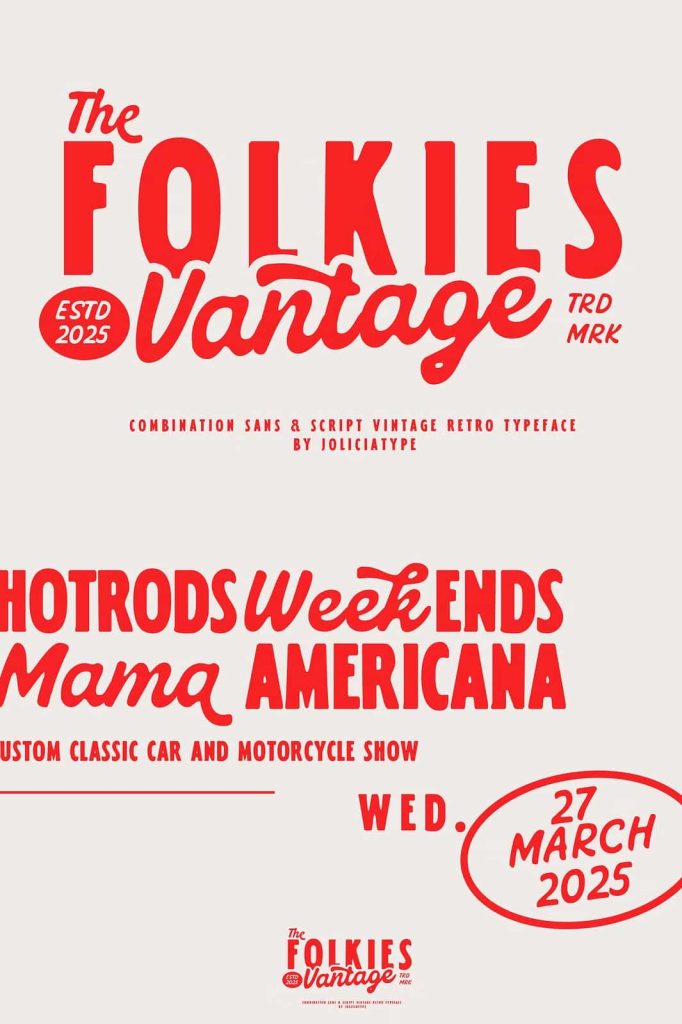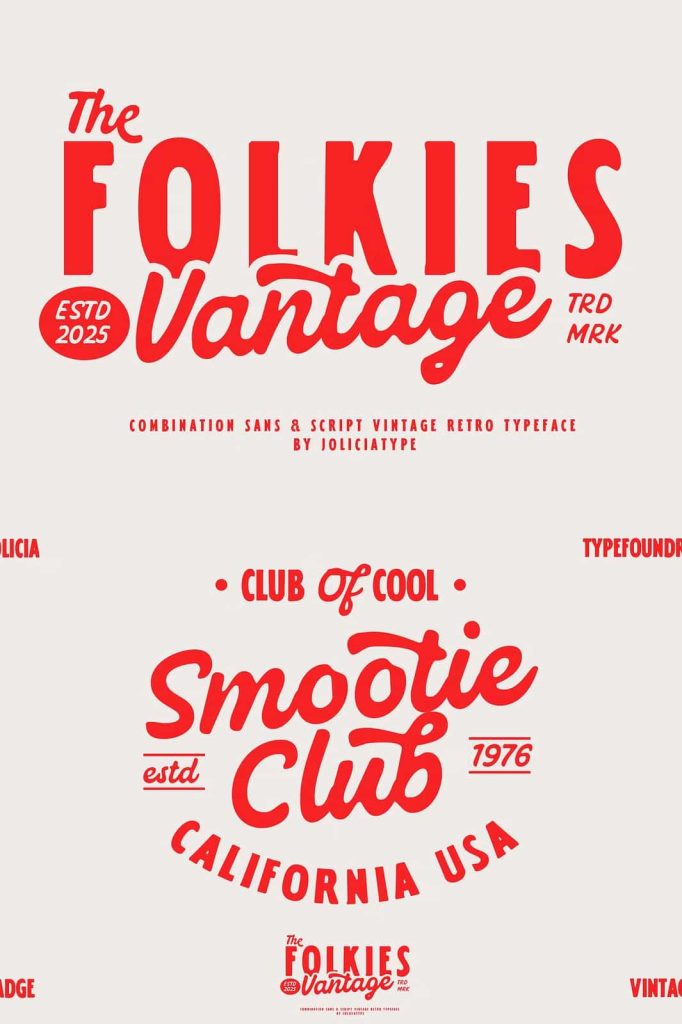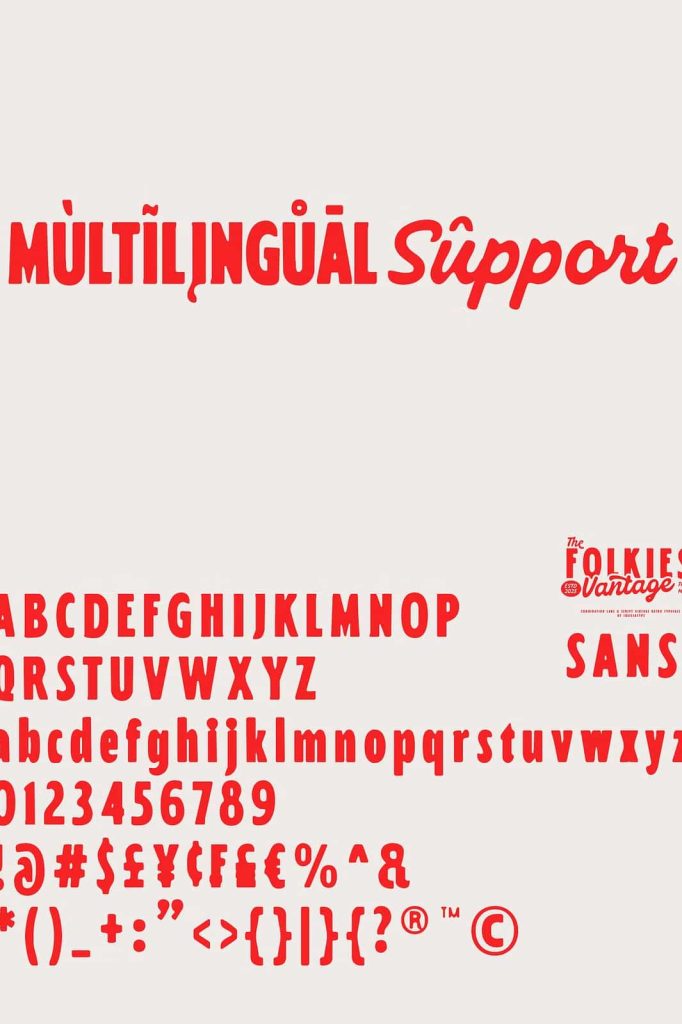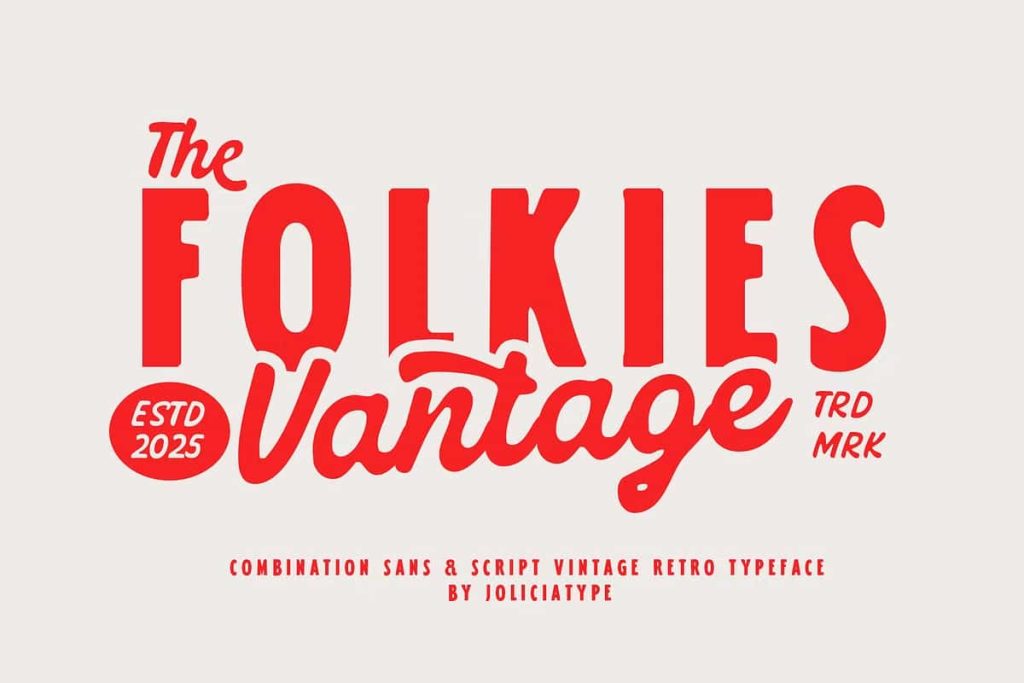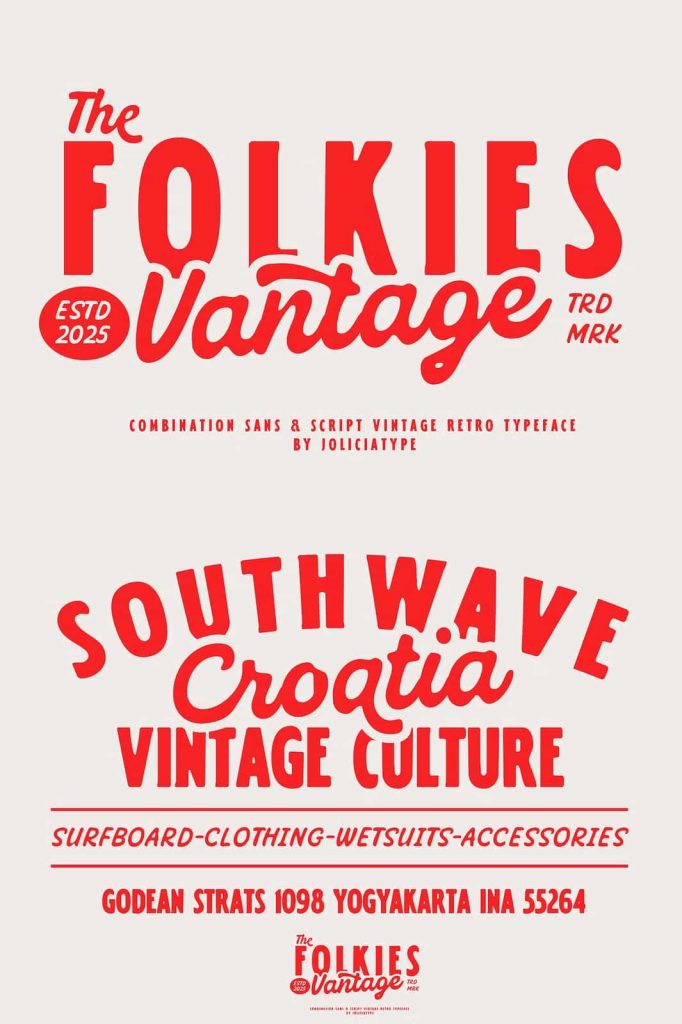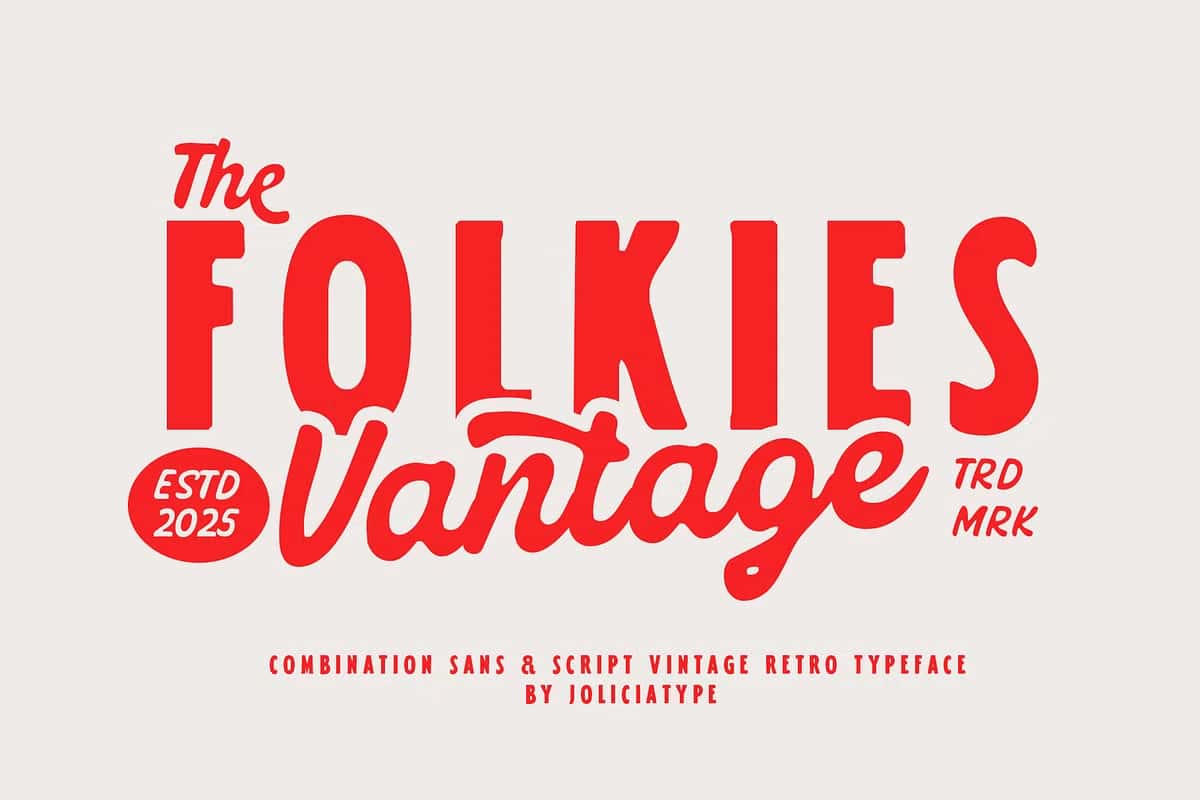
Folkies Vantage Font Duo: Bold Vintage Style with Authentic Character
Folkies Vantage Font Duo delivers a powerful blend of structure and personality through its distinctive combination of sans serif and handcrafted script styles. Designed to capture the essence of vintage signage and traditional lettering, this font duo brings a rich sense of nostalgia into modern design. It channels the charm of a bygone era, where hand-painted signs, textured prints, and imperfect strokes defined visual storytelling.
This typeface does more than present text. It creates atmosphere, evokes emotion, and strengthens the visual identity of your design. Folkies Vantage allows you to build work that feels timeless, authentic, and full of character while maintaining a professional and polished look.
A Perfect Balance Between Structure and Expression
Folkies Vantage stands out through its thoughtful pairing of two contrasting styles. The sans serif component provides a clean, bold foundation that ensures readability and clarity. Its strong lines and geometric structure make it ideal for headlines, titles, and key messaging elements.
In contrast, the script style introduces a handcrafted feel that adds warmth and personality. The flowing strokes and organic curves create movement and visual interest, giving your designs a human touch. Together, these styles form a harmonious balance that allows you to create dynamic and engaging compositions.
Strong Sans Serif for Clarity and Impact
The sans serif portion of Folkies Vantage offers bold, confident letterforms that anchor your design. It delivers a modern edge while still aligning with vintage aesthetics, making it versatile for a wide range of applications. Use it to establish hierarchy, emphasize important content, and create a strong visual structure.
Its clean design ensures that your message remains clear and legible, even when used in large formats or complex layouts.
Handcrafted Script for Personality and Flow
The script style complements the sans serif by introducing expressive, hand-drawn strokes. It reflects the imperfections and character of traditional lettering, adding authenticity to your design. This element works perfectly for highlighting key phrases, adding decorative accents, or creating focal points within your layout.
The natural flow of the script creates a sense of movement, making your typography feel alive and engaging.
Inspired by Vintage Signage and Print Design
Folkies Vantage draws inspiration from classic signage, old packaging, and early print techniques. The subtle textures and artisanal details echo the look of faded ink and hand-crafted materials. This inspiration gives your designs a sense of history and depth, making them feel more meaningful and visually rich.
The font captures the imperfections that define vintage design, turning them into strengths that enhance authenticity. This approach allows you to create work that feels genuine rather than overly polished or artificial.
Textured and Nostalgic Visual Appeal
The vintage influence extends into the overall tone of the typeface. It encourages the use of textures, muted color palettes, and layered compositions. When combined with these elements, Folkies Vantage helps you build designs that feel immersive and cohesive.
This nostalgic quality makes it especially effective for projects that aim to tell a story or connect with audiences on an emotional level.
Ideal for Branding and Creative Projects
Folkies Vantage Font Duo adapts seamlessly to a variety of design applications. Its combination of strength and personality makes it particularly effective for branding and identity work. You can use it in:
- Logo design and brand identity systems
- Packaging for artisanal and handcrafted products
- Vintage-inspired posters and signage
- Editorial layouts and magazine headlines
- Social media graphics and promotional materials
The flexibility of the duo allows you to mix and match styles to suit your creative vision. Whether you want a bold statement or a subtle decorative touch, this font provides the tools you need.
Create Authentic and Memorable Designs
Folkies Vantage helps you build designs that stand out by combining clarity with character. The contrast between the structured sans serif and the expressive script creates visual interest and depth. This combination ensures that your work feels both professional and approachable.
Use the sans serif for strong headlines and the script for accents or highlights. This approach creates a balanced composition that guides the viewer’s eye and enhances readability.
Effortless Vintage Aesthetic
One of the key advantages of Folkies Vantage is its ability to deliver a vintage aesthetic without requiring complex design techniques. The font’s built-in character and texture do much of the work for you, allowing you to focus on layout and messaging.
This efficiency makes it an excellent choice for designers who want to achieve a high-quality, nostalgic look quickly and effectively.
Elevate Your Design with Timeless Style
If you want to create designs that feel authentic, expressive, and visually compelling, Folkies Vantage Font Duo delivers the perfect balance. Use it to craft branding, packaging, and graphics that capture attention and communicate a strong sense of identity.
Bring your creative vision to life with a typeface that celebrates the beauty of vintage design while empowering modern expression.